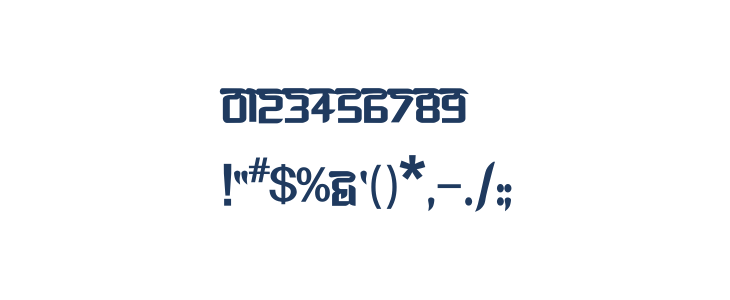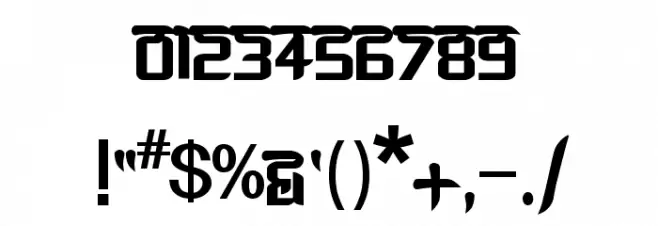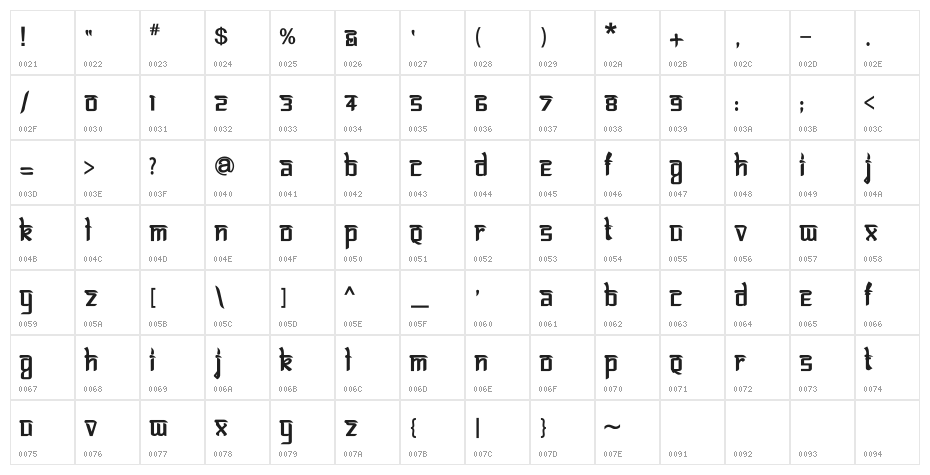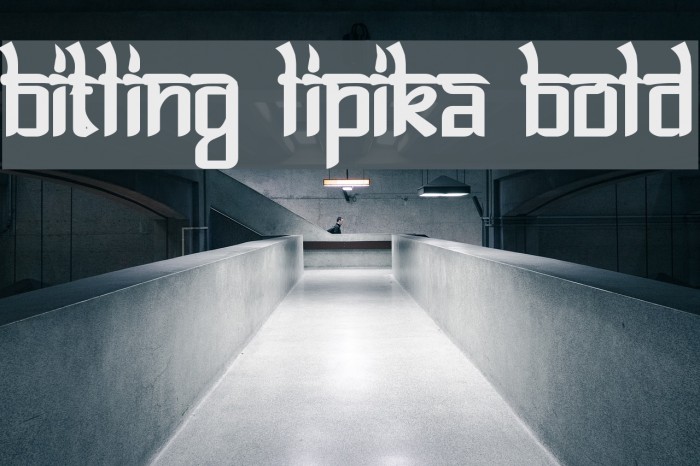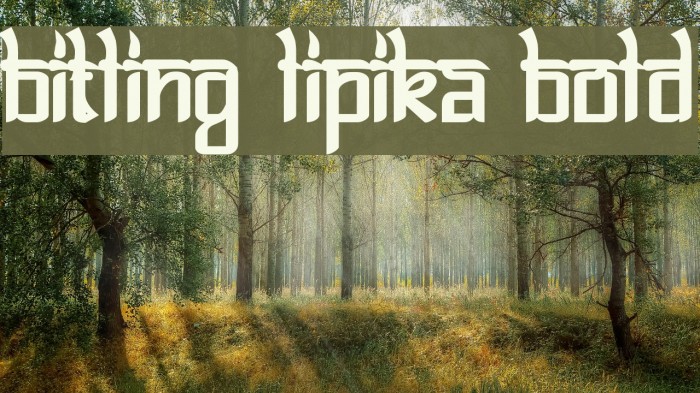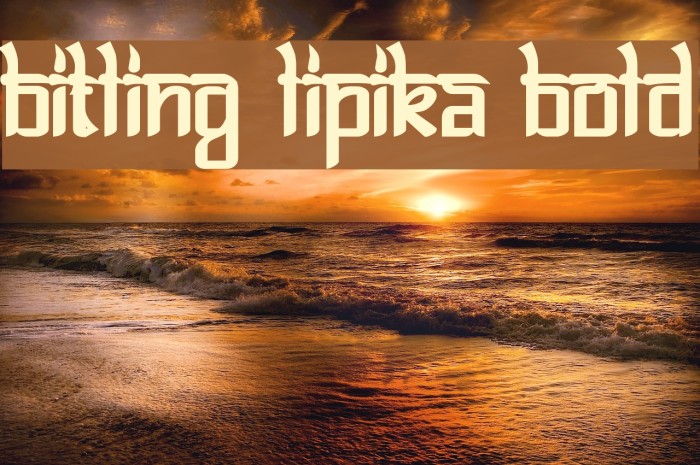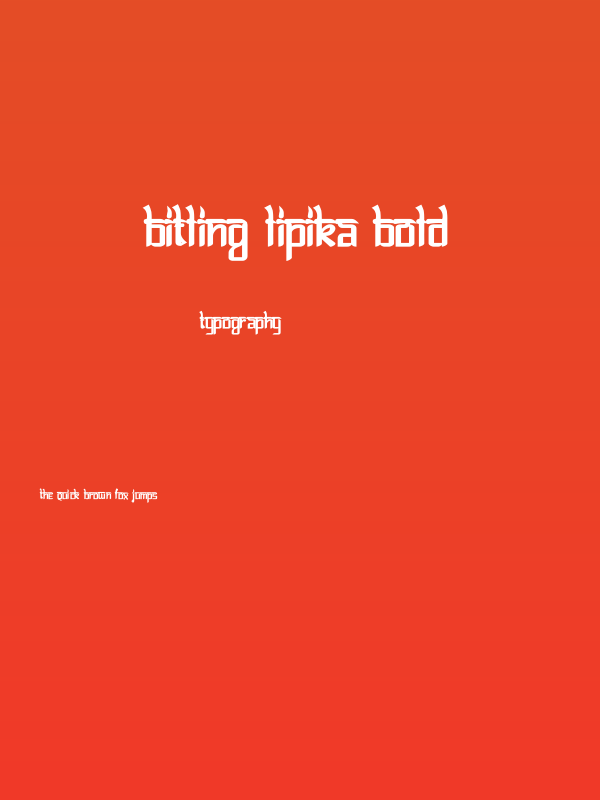
Bitling lipika Bold Font
Bitling lipika Bold Description
This font features a bold and striking design with a unique, angular style that combines elements of modern and decorative typography. The characters are crafted with sharp edges and a geometric structure, giving them a distinct and edgy appearance. The uppercase and lowercase letters maintain a consistent design, while the numerals and special characters complement the overall aesthetic. This font is ideal for projects that require a bold statement and a touch of creativity.
| Proposed Projects | Ideal for branding, posters, album covers, and any project needing a bold, creative touch. |